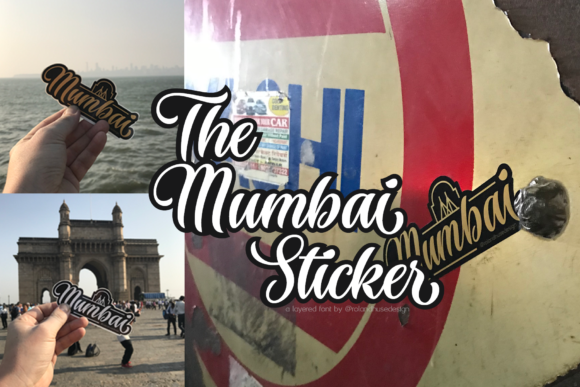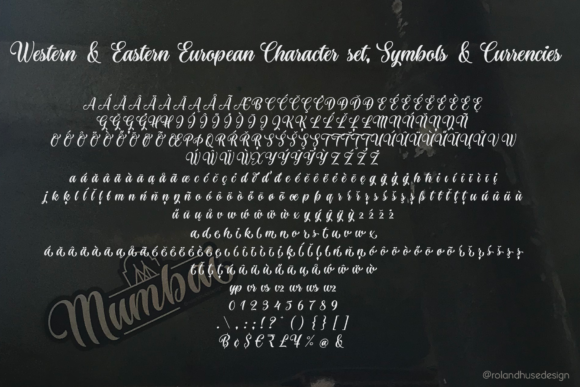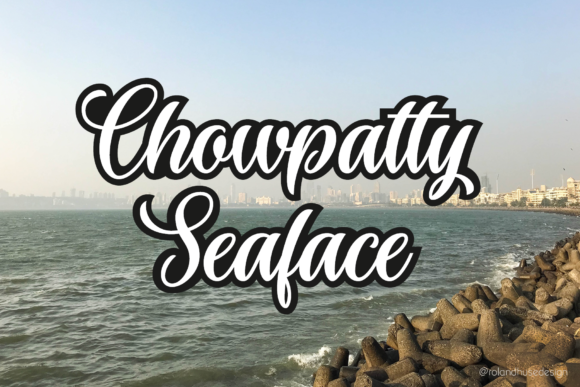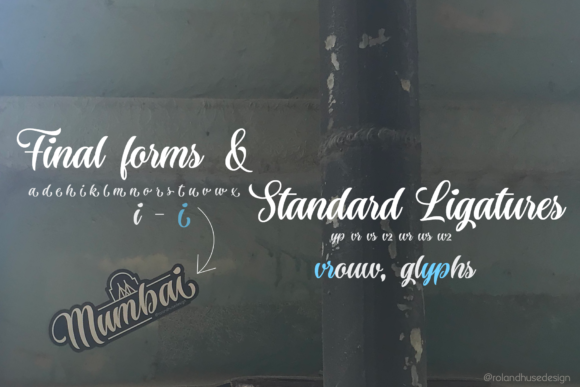
The Mumbai Sticker Font
About The Mumbai Sticker Font
The Mumbai Sticker is a bold and powerful handwritten font with a unique twist. It will turn any design project on